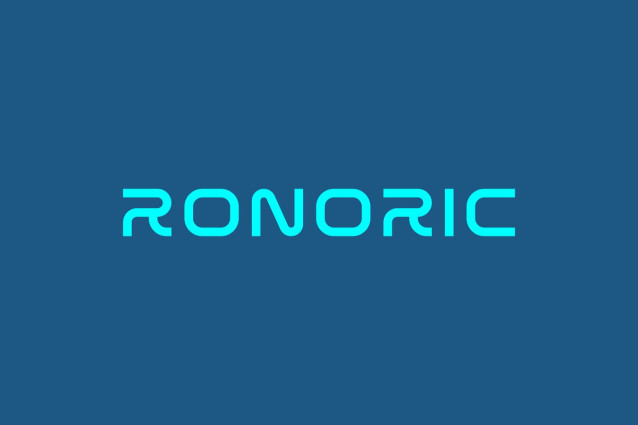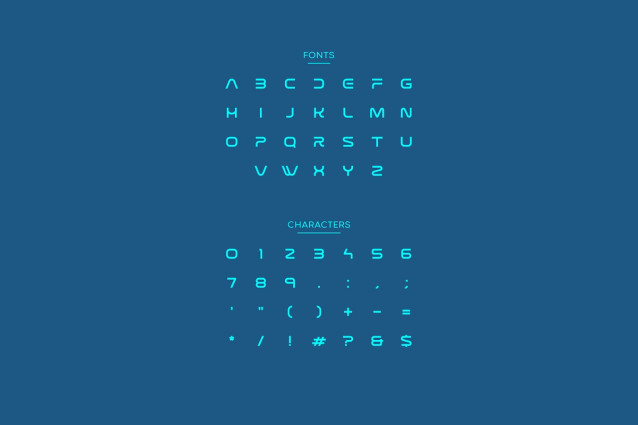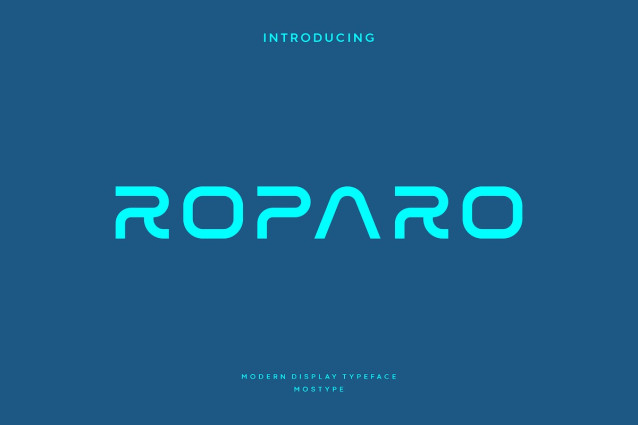
Roparo Font
Roparo Font is a sans serif font meant for Logo & branding, The in characters were build in chunky personality, It’s great for headlines and titles but is also very legible in sentence case. perfect for crafting, branding, invitation, stationery, wedding designs, social media posts, advertisements, product packaging, product designs, label, Posters, photography, special events, or anything.